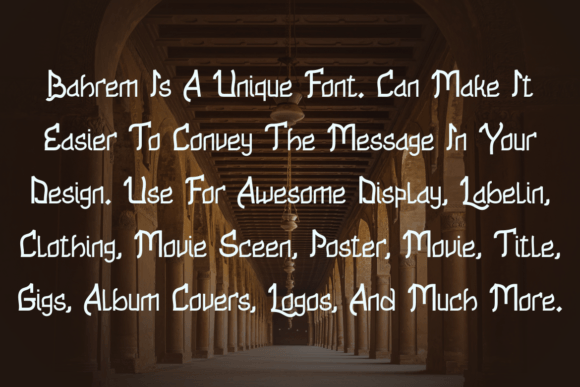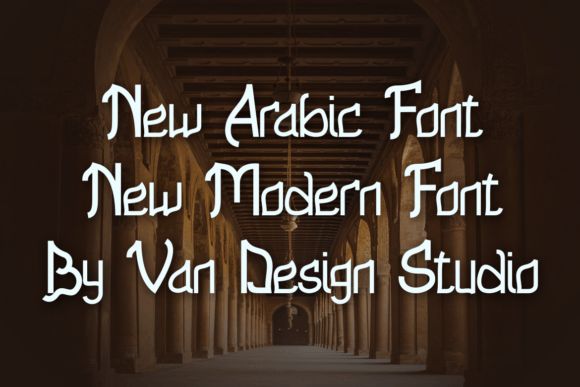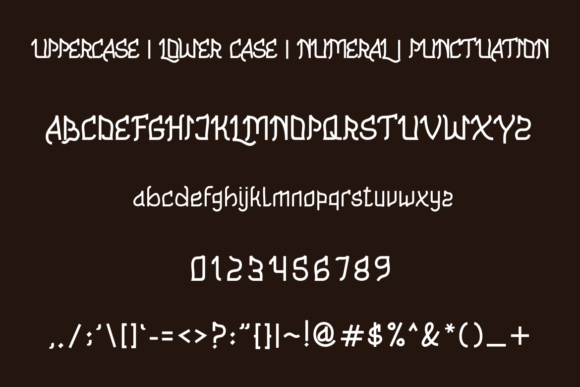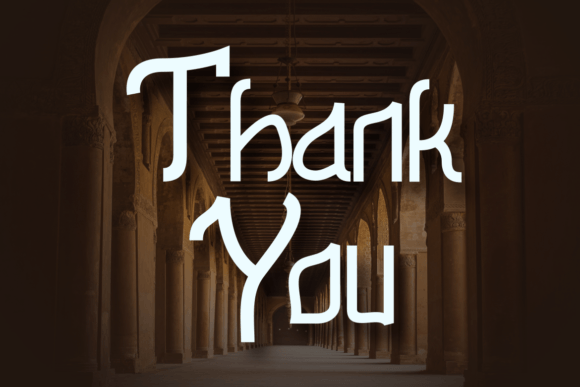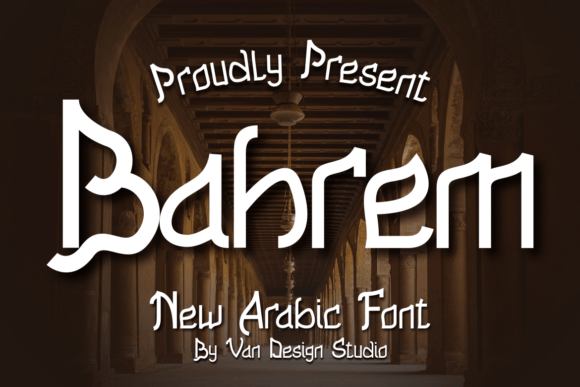
Bahrem Font: Unlocking the Magic of Modern Whimsy in Design
Bahrem is an incredibly cool and unique display font. It has a modern yet whimsical style and it will undoubtedly immerse your designs into a magical world. In the realm of typography, fonts play a pivotal role in conveying messages, evoking emotions, and setting the tone for any design project. Among the myriad of fonts available to designers and crafters, Bahrem stands out for its distinctive charm and versatility. This article aims to explore the enchanting world of Bahrem Font, delving into its characteristics, uses, and the creative possibilities it offers.
The Essence of Bahrem Font
Bahrem Font is a display font that merges modern aesthetics with a whimsical touch, making it a perfect choice for projects that demand a bit of magic and a lot of personality. Its letters are designed with a unique flair, featuring subtle irregularities and a friendly demeanor that invites the viewer to step into a fantastical realm. Whether you’re working on a branding project, a website design, or crafting materials, Bahrem Font brings a fresh and imaginative vibe that can elevate your work from ordinary to extraordinary.
Key Features of Bahrem Font
- Modern Whimsy: Bahrem Font strikes a perfect balance between modern design principles and whimsical elements, making it versatile for a wide range of design projects.
- Unique Letterforms: Each letter in the Bahrem Font has its own character, with subtle variations that add to its charm and prevent the design from looking monotonous.
- High Readability: Despite its unique style, Bahrem Font maintains high readability, making it suitable for headlines, titles, and short paragraphs.
- Emotional Connection: The font’s friendly and approachable feel helps in creating an emotional connection with the audience, which is crucial for effective design.
Applications of Bahrem Font
The versatility of Bahrem Font makes it applicable in various design scenarios. Here are some of the areas where Bahrem Font truly shines:
- Branding and Logos: For businesses looking to establish a brand identity that is modern yet stands out from the crowd, Bahrem Font can be a great choice. Its unique style can help in creating memorable logos and brand names.
- Website Design: Adding a touch of whimsy to website headers, titles, and call-to-action buttons can enhance user experience and engagement. Bahrem Font can play a pivotal role in achieving this.
- Digital and Print Media: Whether it’s for a magazine cover, a poster, or digital media like social posts and banners, Bahrem Font can add a magical touch that captures attention.
- Crafting and DIY Projects: For crafters and DIY enthusiasts, Bahrem Font can be used in various creative projects such as handmade cards, scrapbooking, and craft tutorials, adding a personalized and professional touch.
Tips for Using Bahrem Font Effectively
To make the most out of Bahrem Font, consider the following tips:
- Pair it Wisely: Combine Bahrem Font with simpler fonts for body text to create contrast and ensure readability.
- Experiment with Colors: The font’s design allows it to work well with a variety of colors. Experiment with different palettes to find the best fit for your design.
- Adjust Letter Spacing: For certain projects, adjusting the letter spacing can enhance the overall look and feel of the text.
Bahrem Font is more than just a typeface; it’s a design element that can transform your projects with its modern whimsy and unique charm. Whether you’re a professional designer or a crafting enthusiast, Bahrem offers a world of creative possibilities. By incorporating Bahrem Font into your designs, you’re not just choosing a font; you’re inviting your audience into a magical world of imagination and creativity. So, unleash your creativity and let Bahrem Font be the guide that leads your designs into a realm of enchantment and wonder.